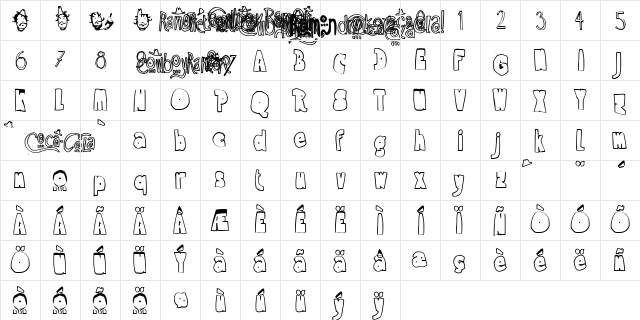
Ramon Bold Font Preview
Ramon Bold
Ramon Bold Font Details
| Foundry | Piet Brantjes |
| Designer | Piet Brantjes |
Design Context for Ramon Typeface
Ramon is a composed and adaptable typeface that performs quietly and consistently across a wide range of design contexts. The heavy weight commands attention and anchors typographic hierarchies.